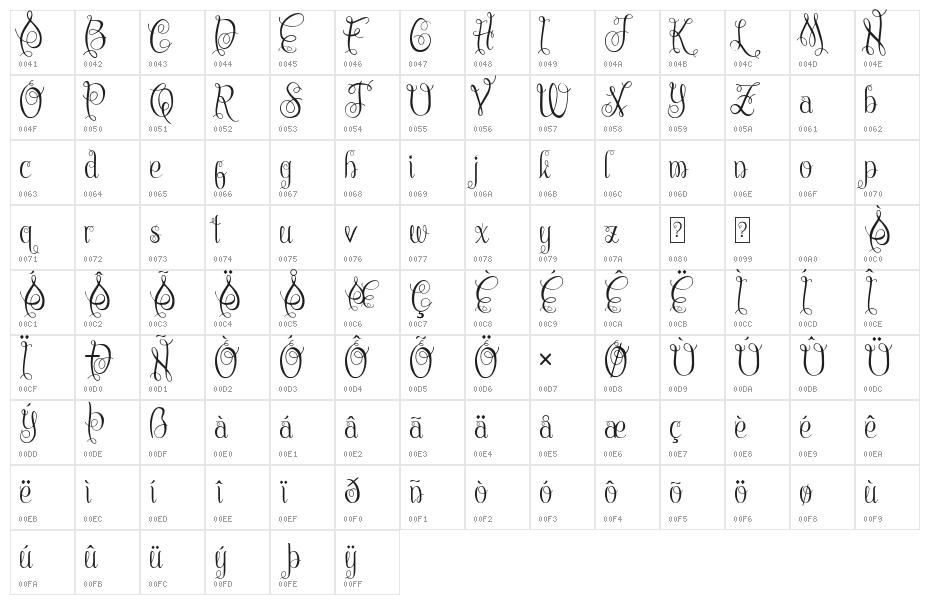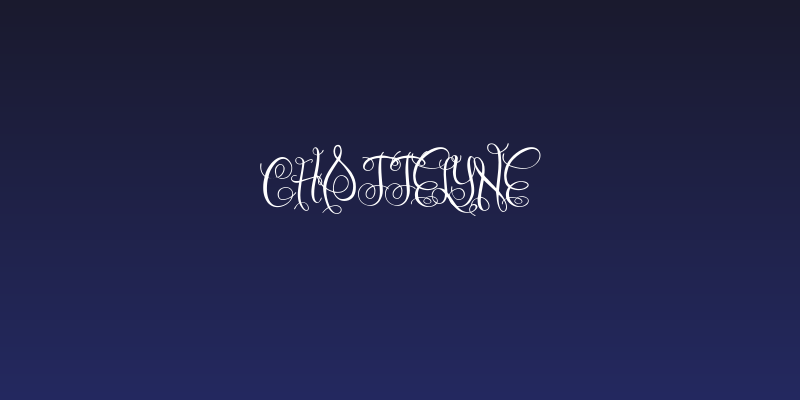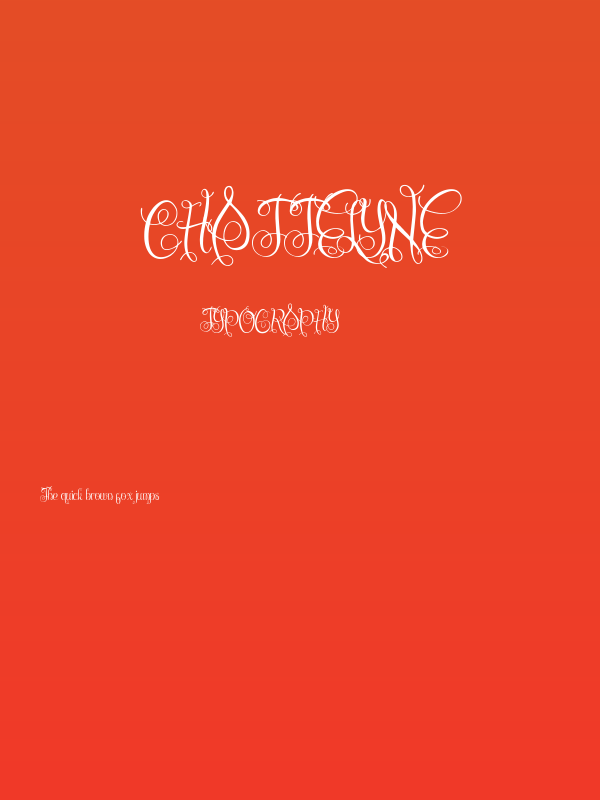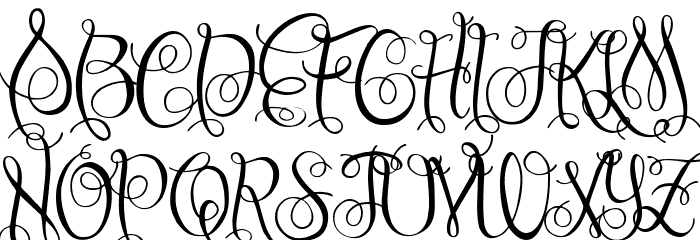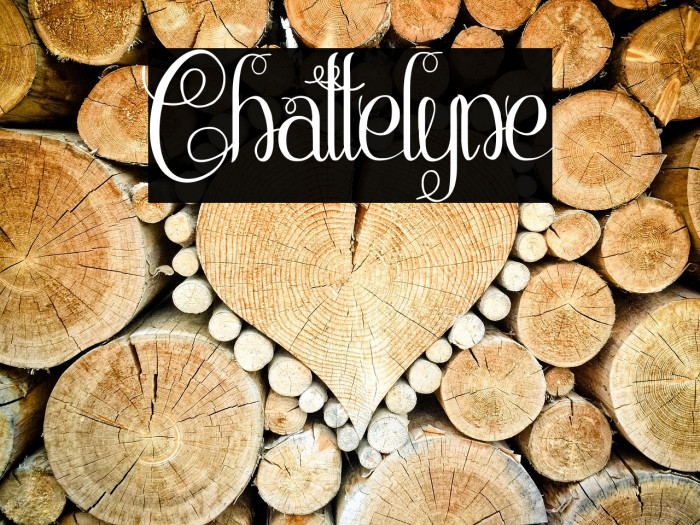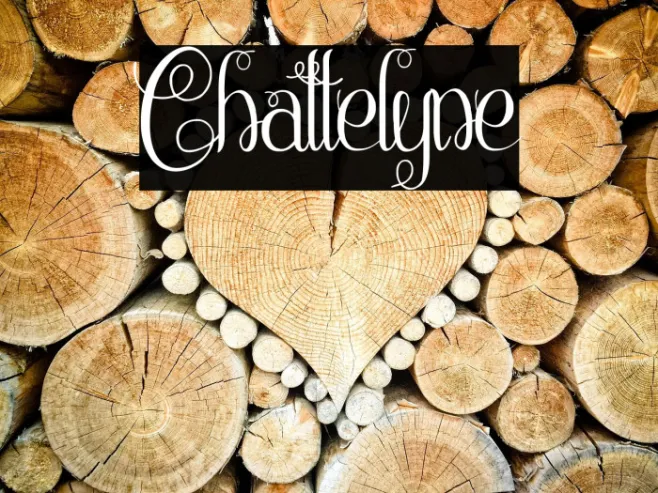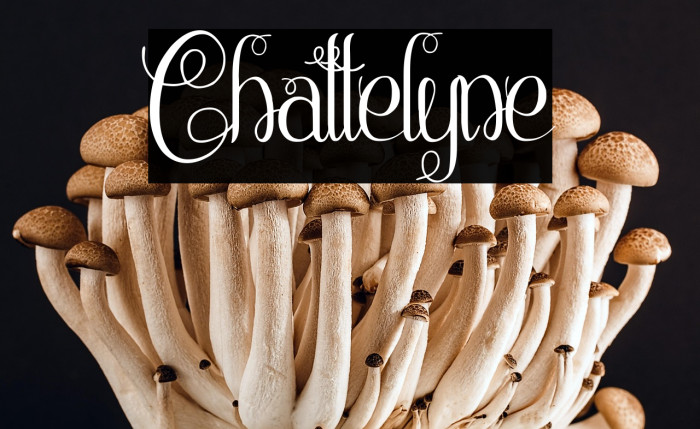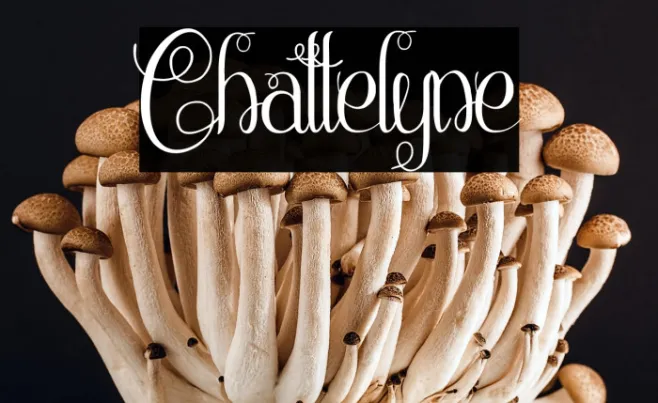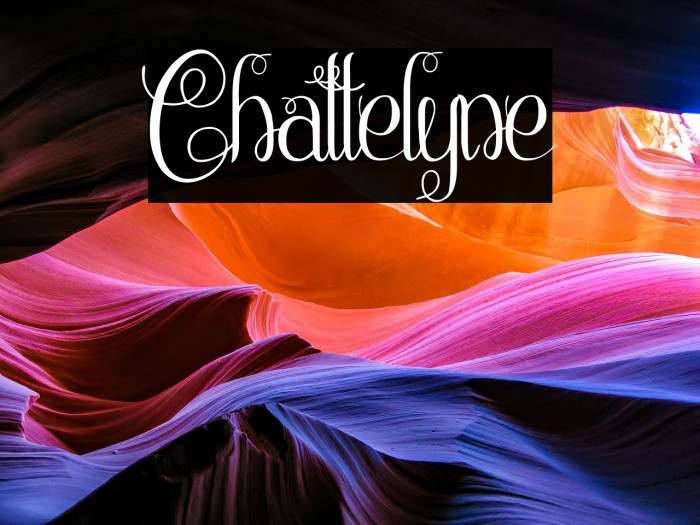
Chattelyne Font
Chattelyne Description
This font features an elaborate and decorative style with intricate swirls and flourishes that extend from each character, creating a sense of elegance and sophistication. The uppercase letters are particularly ornate, with loops and curls that give them a unique and artistic flair. The lowercase letters, while still decorative, are slightly more restrained, allowing for readability while maintaining the overall aesthetic. The numbers and special characters are designed to match the ornate style of the alphabet, ensuring consistency throughout. This font is perfect for projects that require a touch of elegance and creativity.
| Proposed Projects | Ideal for wedding invitations, luxury branding, artistic posters, and decorative headings. |